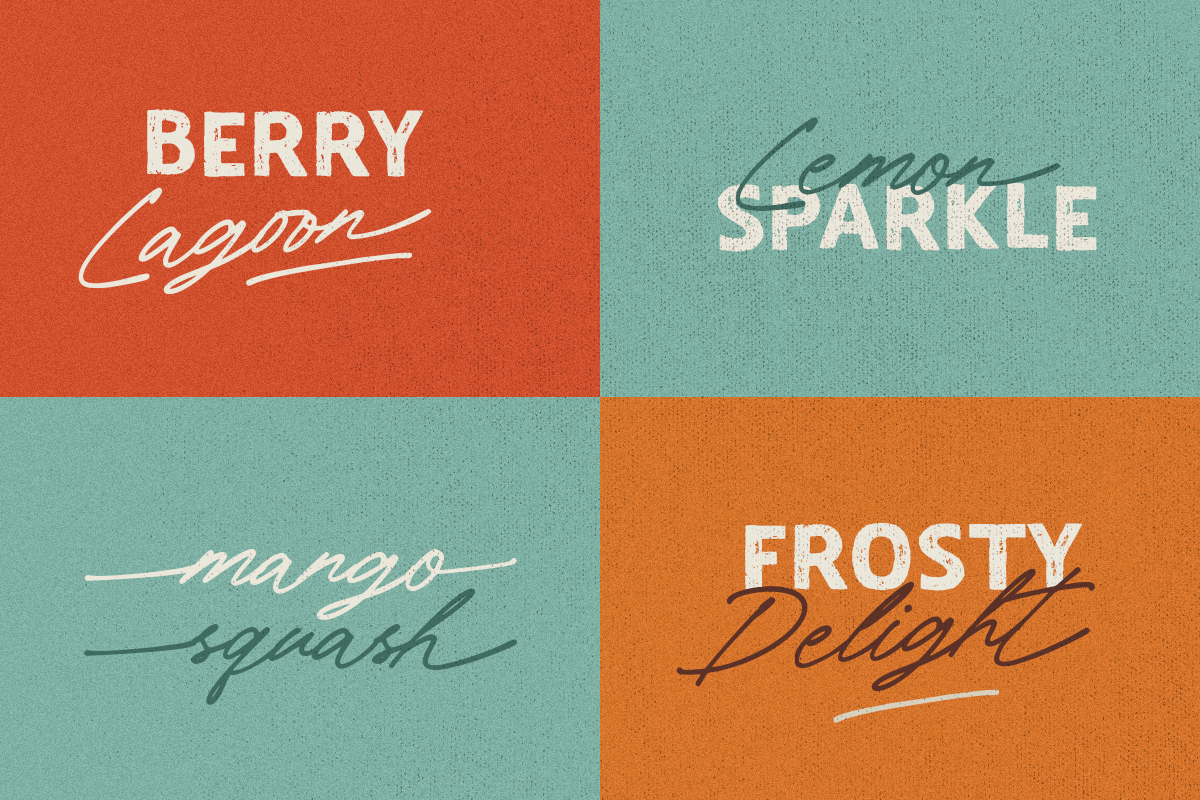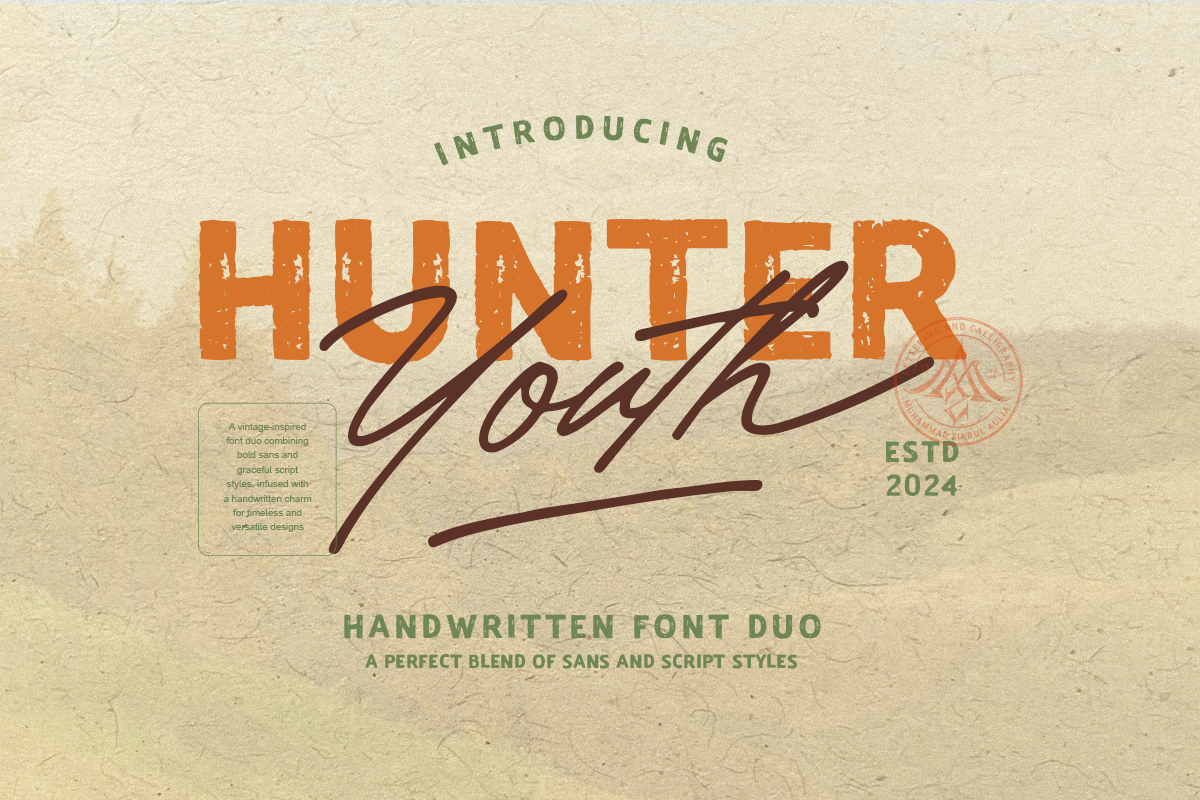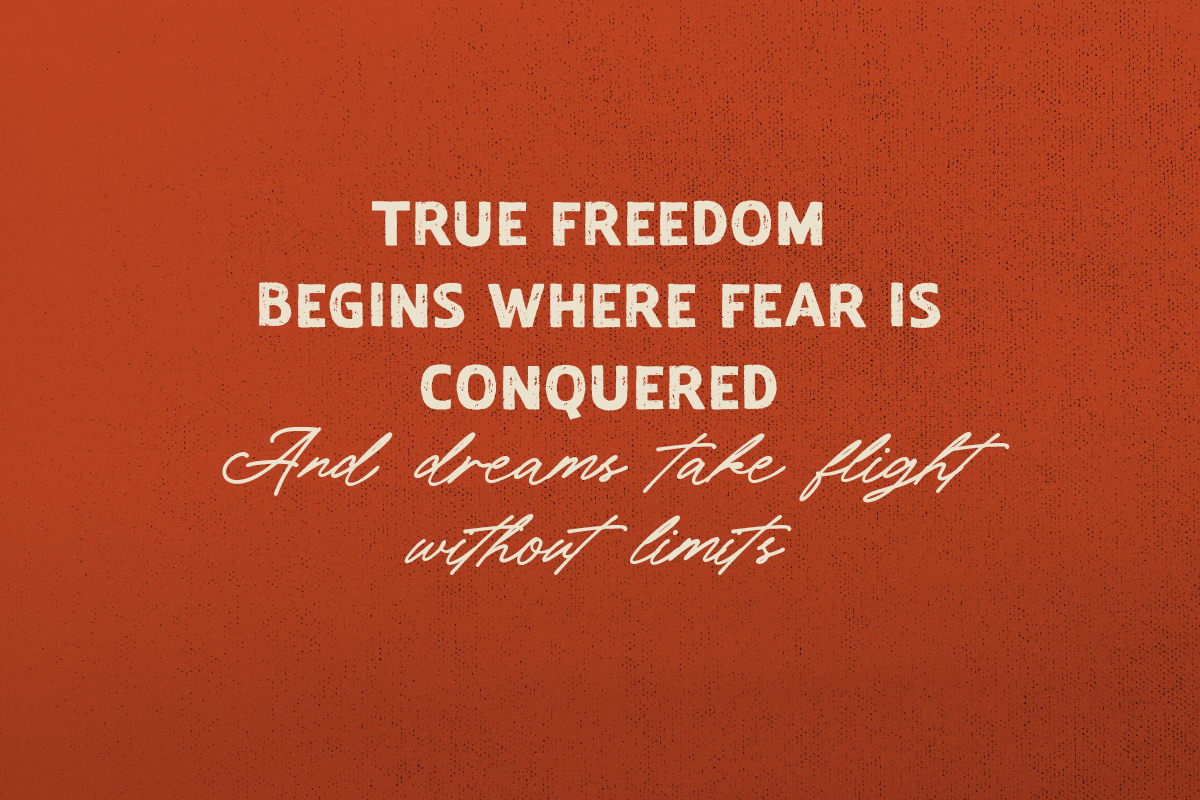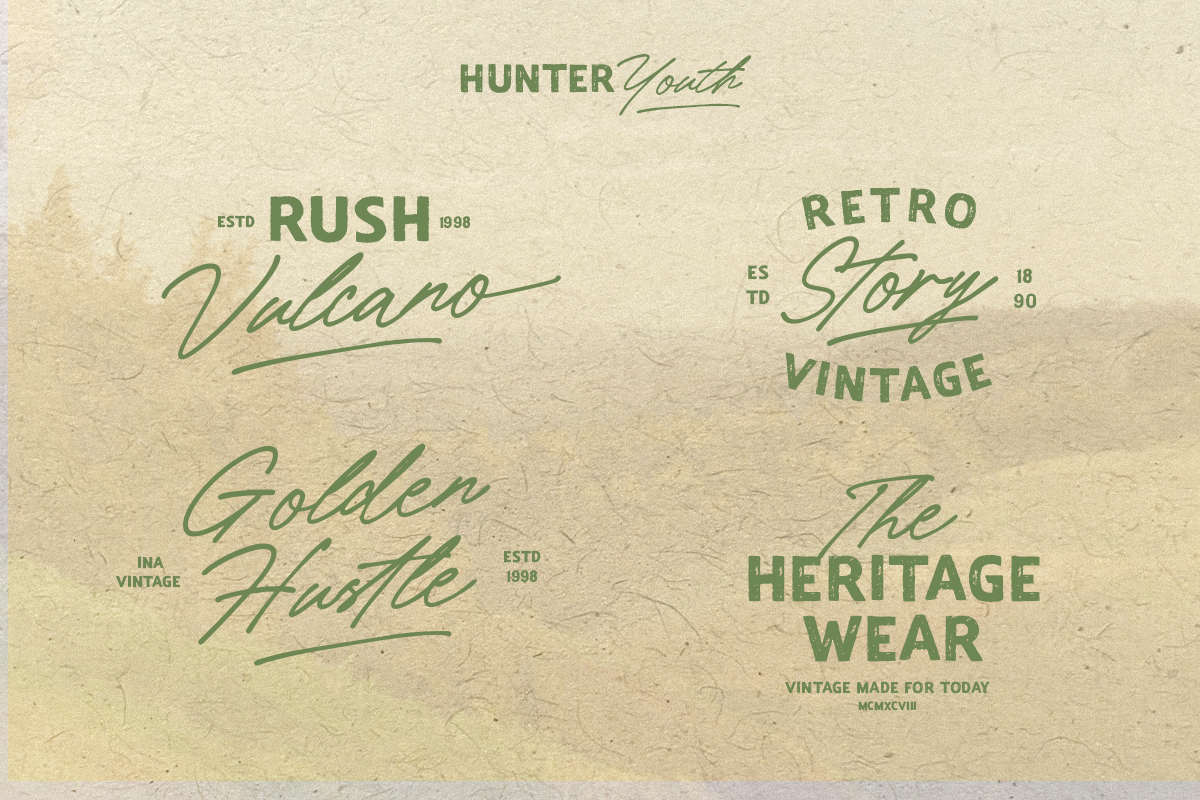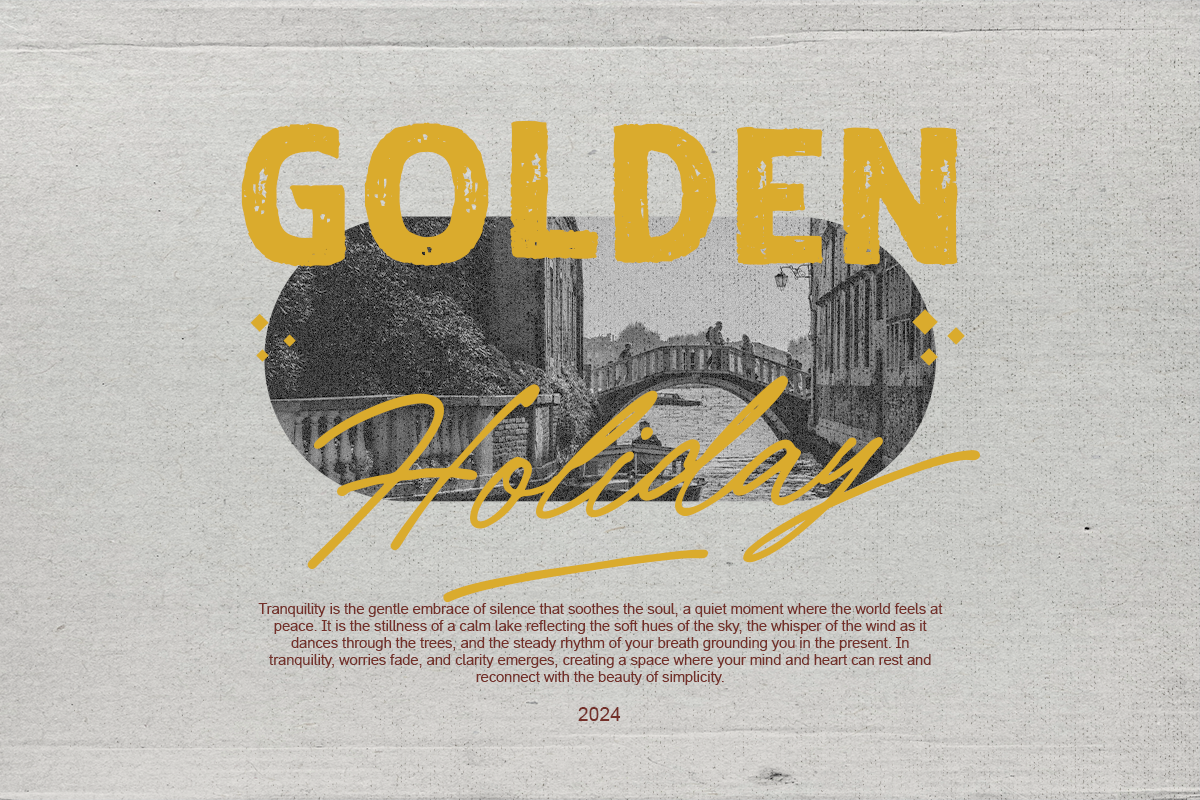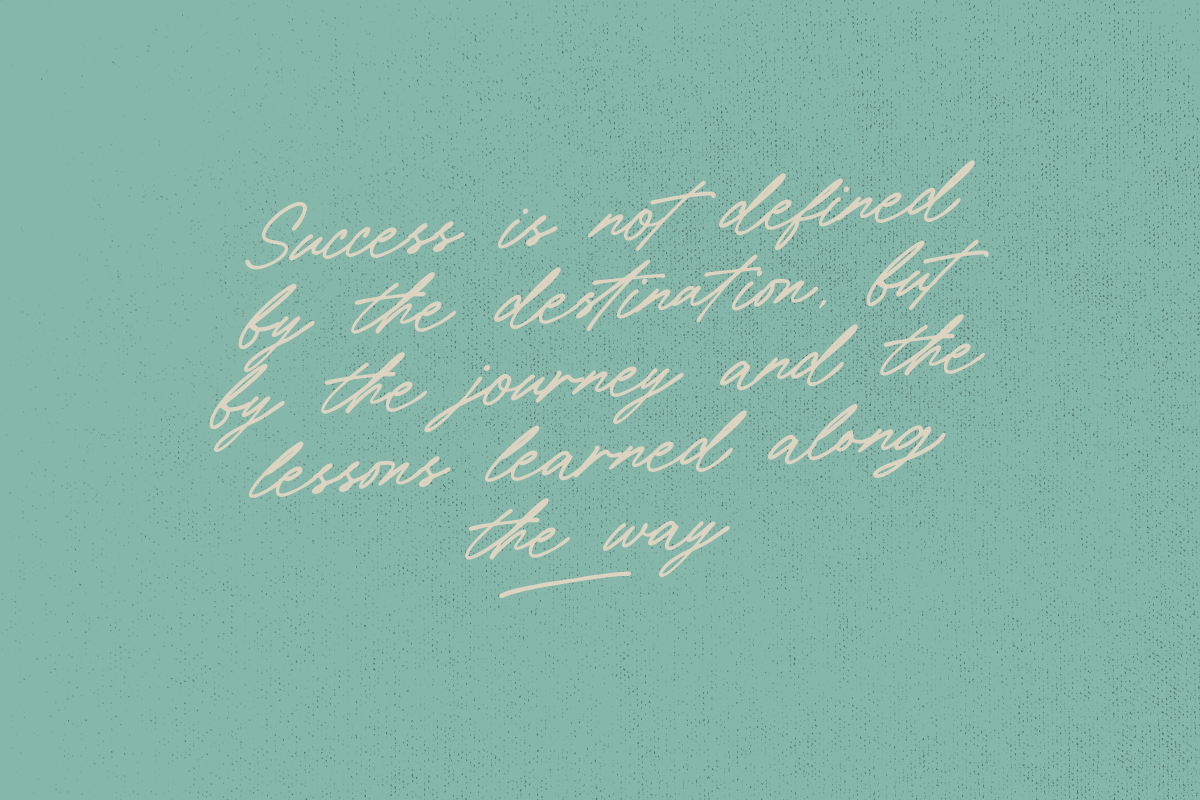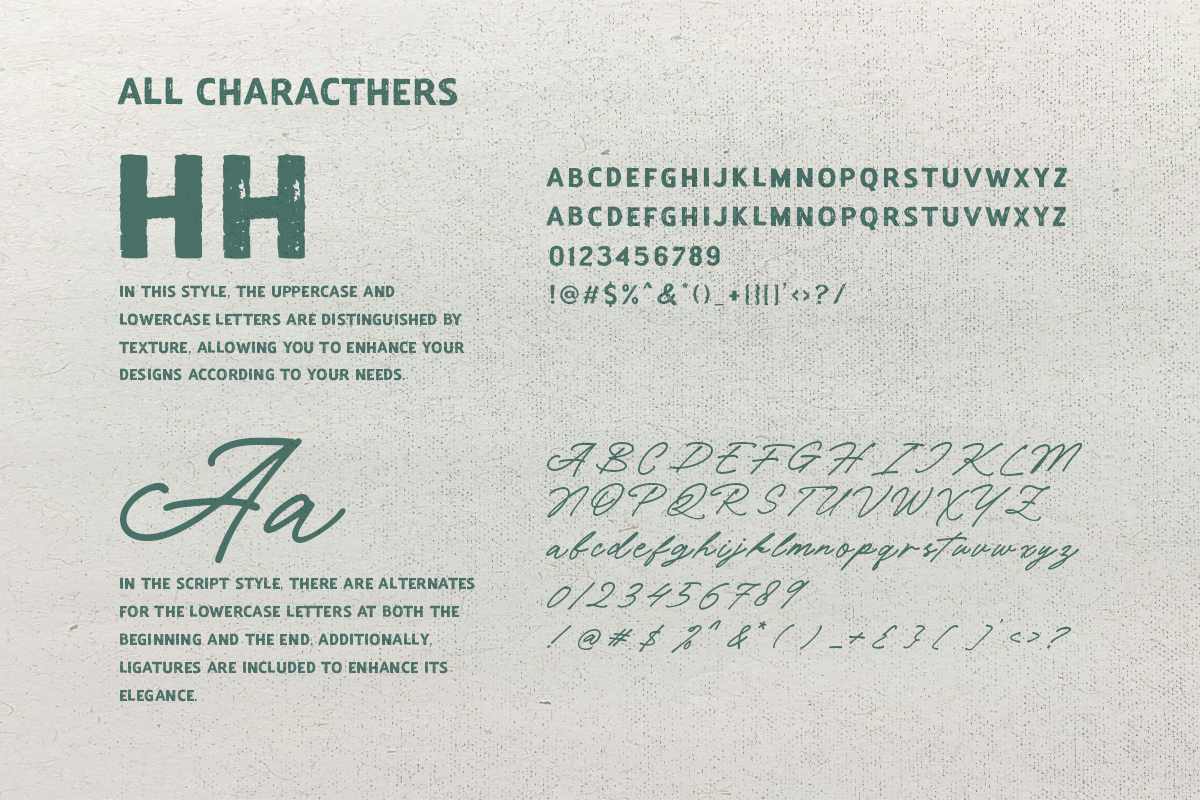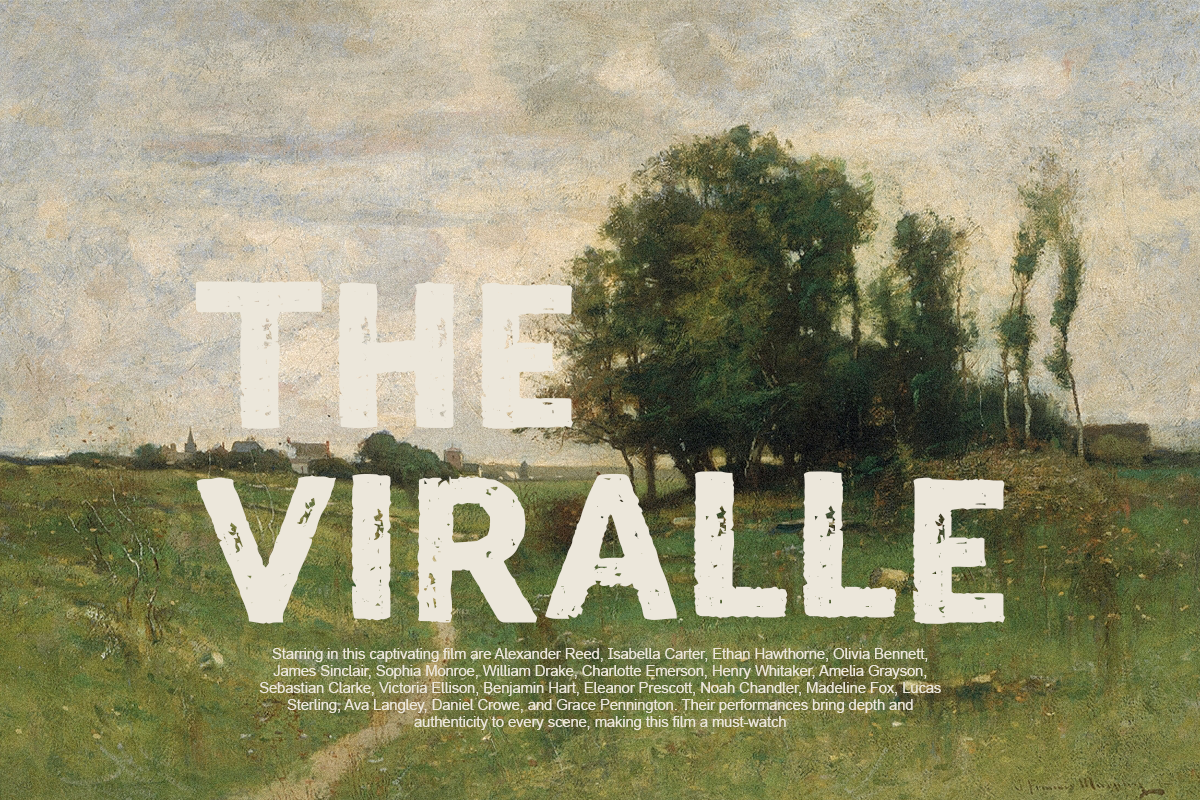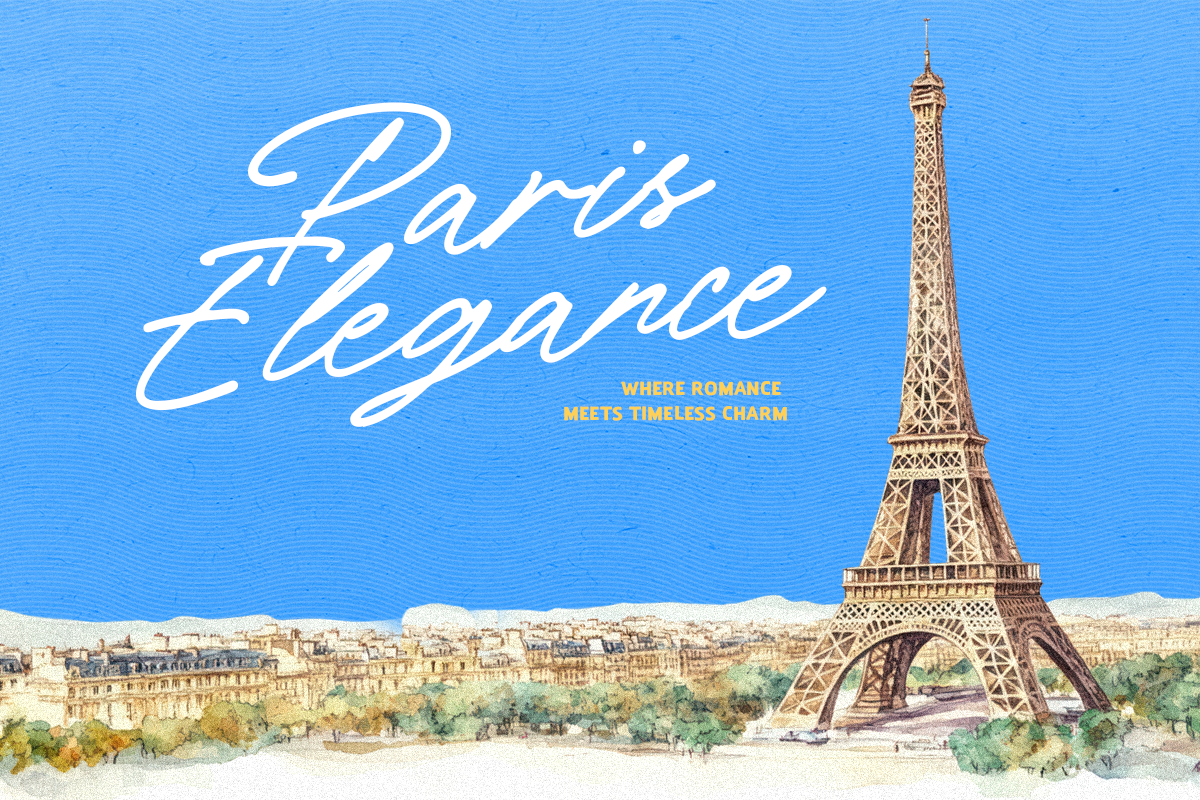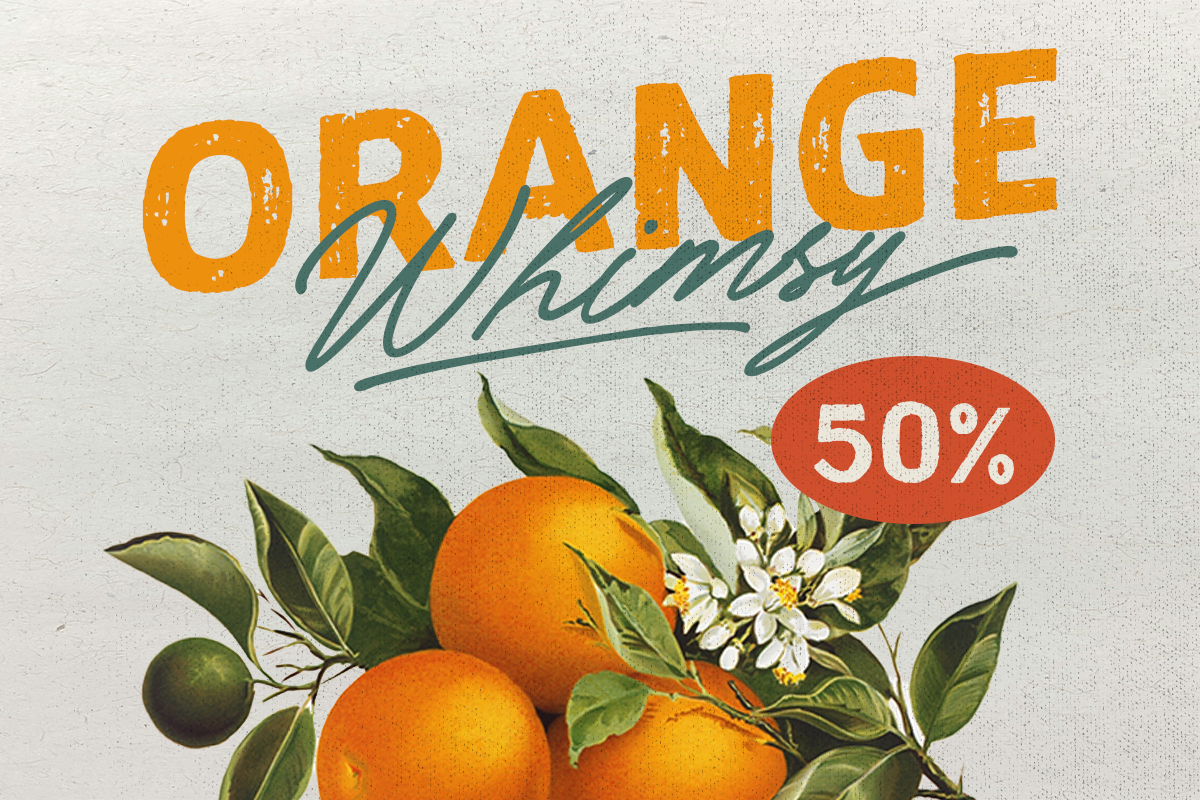
Hunter Youth - Vintage Font Duo
Hunter Youth: Vintage Font Duo
Hunter Youth is a charming font duo featuring a natural vintage vibe with both Sans and Script styles. This font exudes a classic yet elegant feel, making it perfect for a wide range of design needs, including food branding, apparel, logos, and more.
The unique pairing of Sans and Script creates a versatile and memorable look, making Hunter Youth a must-have for anyone looking to elevate their designs with a touch of vintage sophistication.
- Sans and Script styles
Unleash your creativity with the timeless appeal of Hunter Youth!